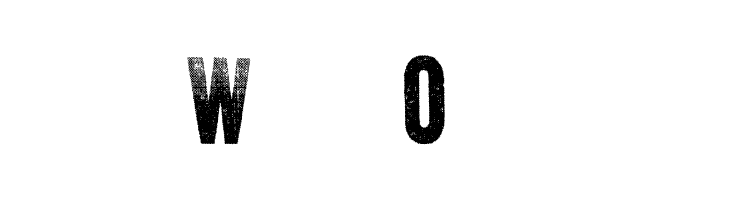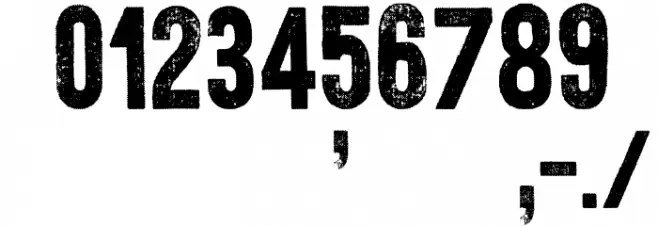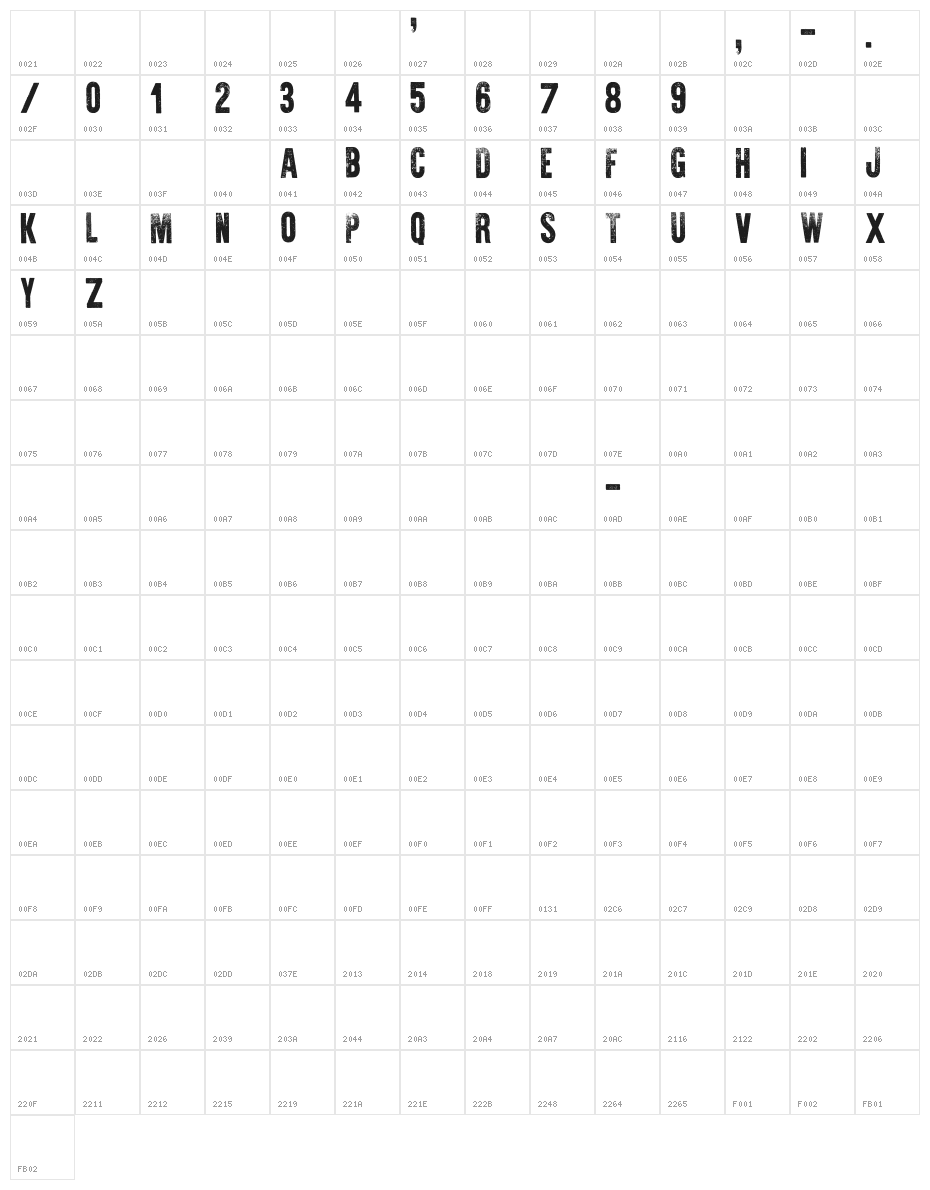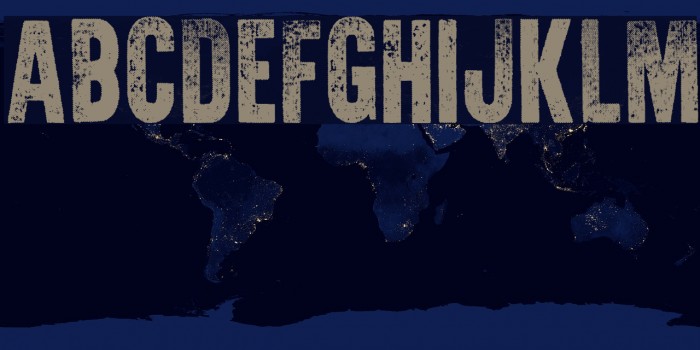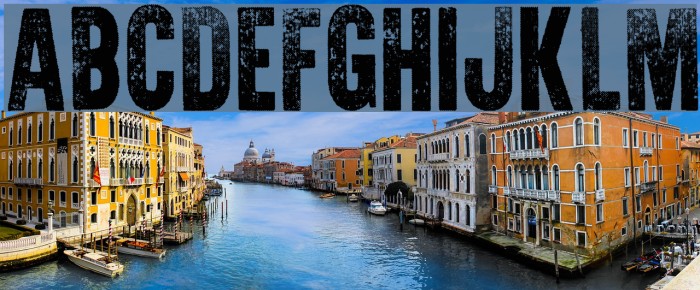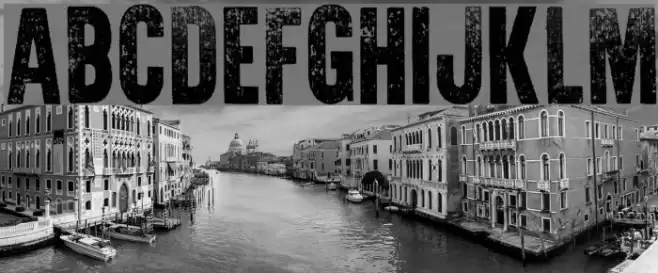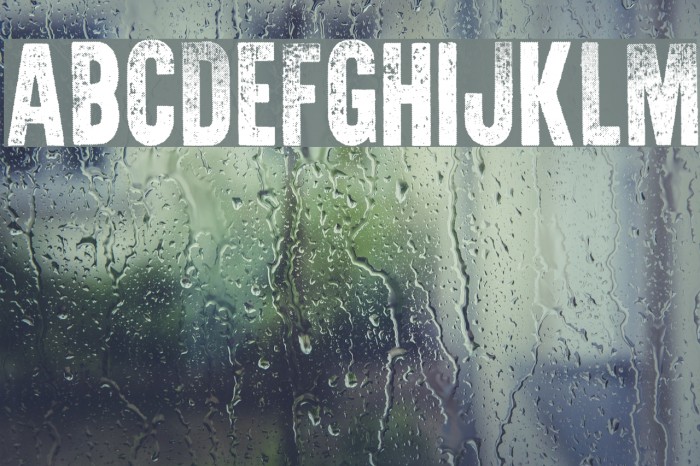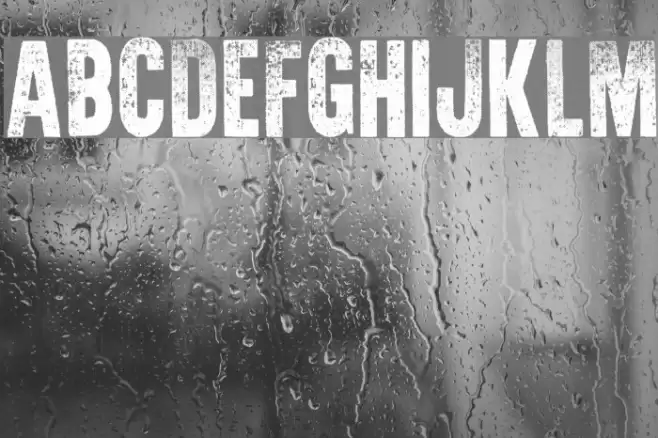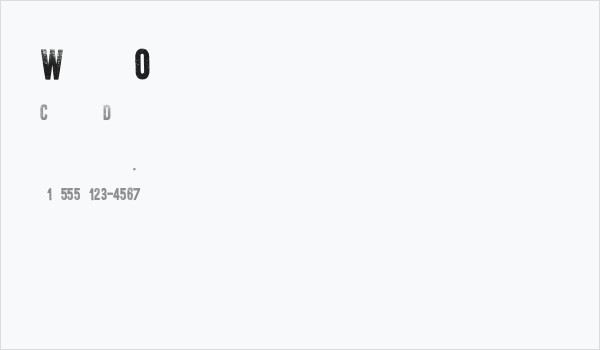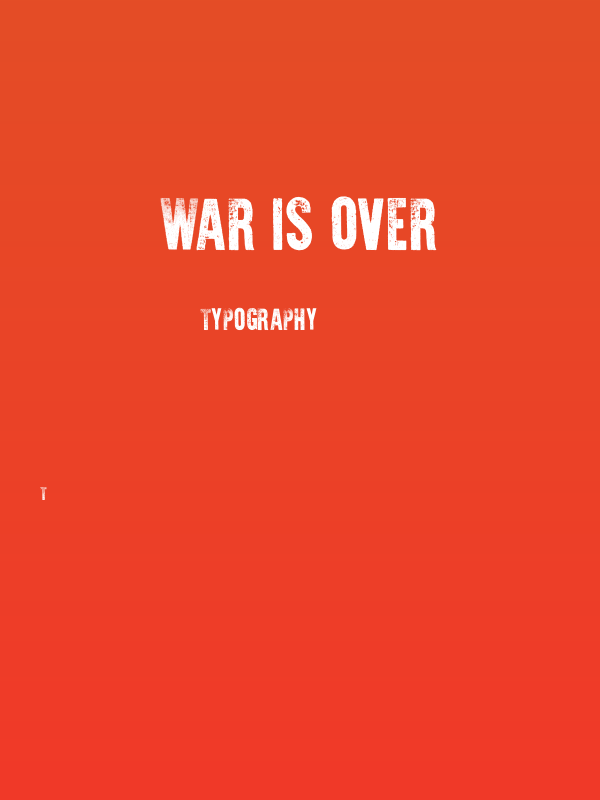
War is Over Font
War is Over Description
This font features a bold, distressed style that gives it a rugged, vintage appearance. The characters are uppercase and numerals, with a textured, worn-out look that suggests a sense of history and character. The bold strokes are uneven, adding to the distressed effect, while the overall structure remains strong and impactful. The font's design is reminiscent of old posters or signage, making it ideal for projects that require a touch of nostalgia or a gritty aesthetic. Its boldness ensures that it stands out, even with the distressed detailing.
| Proposed Projects | Ideal for vintage posters, album covers, branding for rustic or industrial-themed businesses, and any project needing a bold, historical touch. |